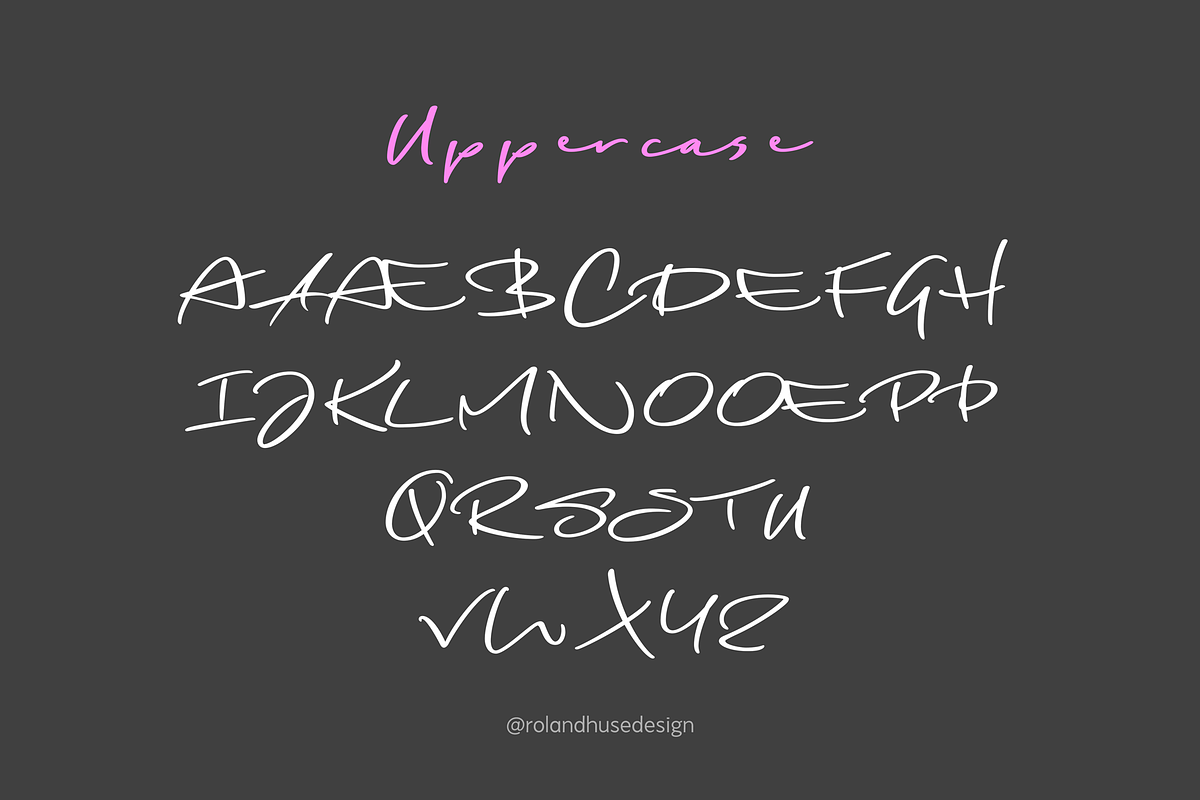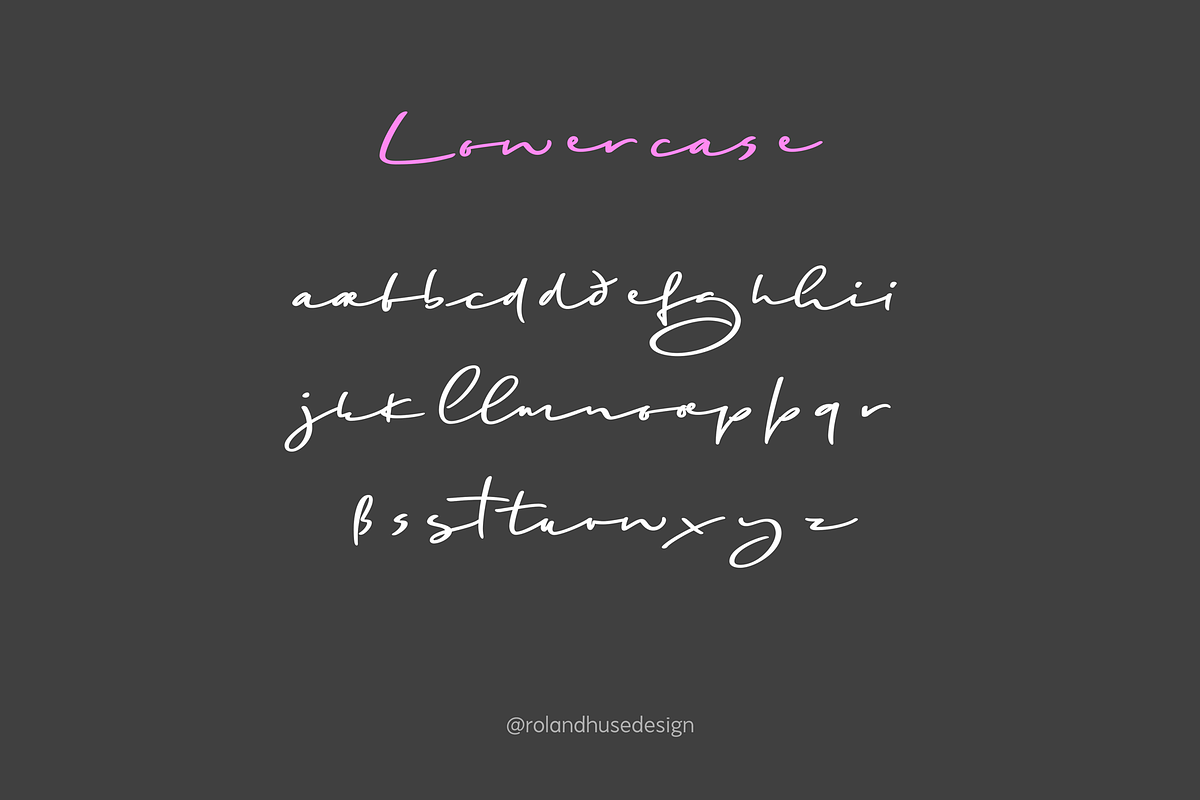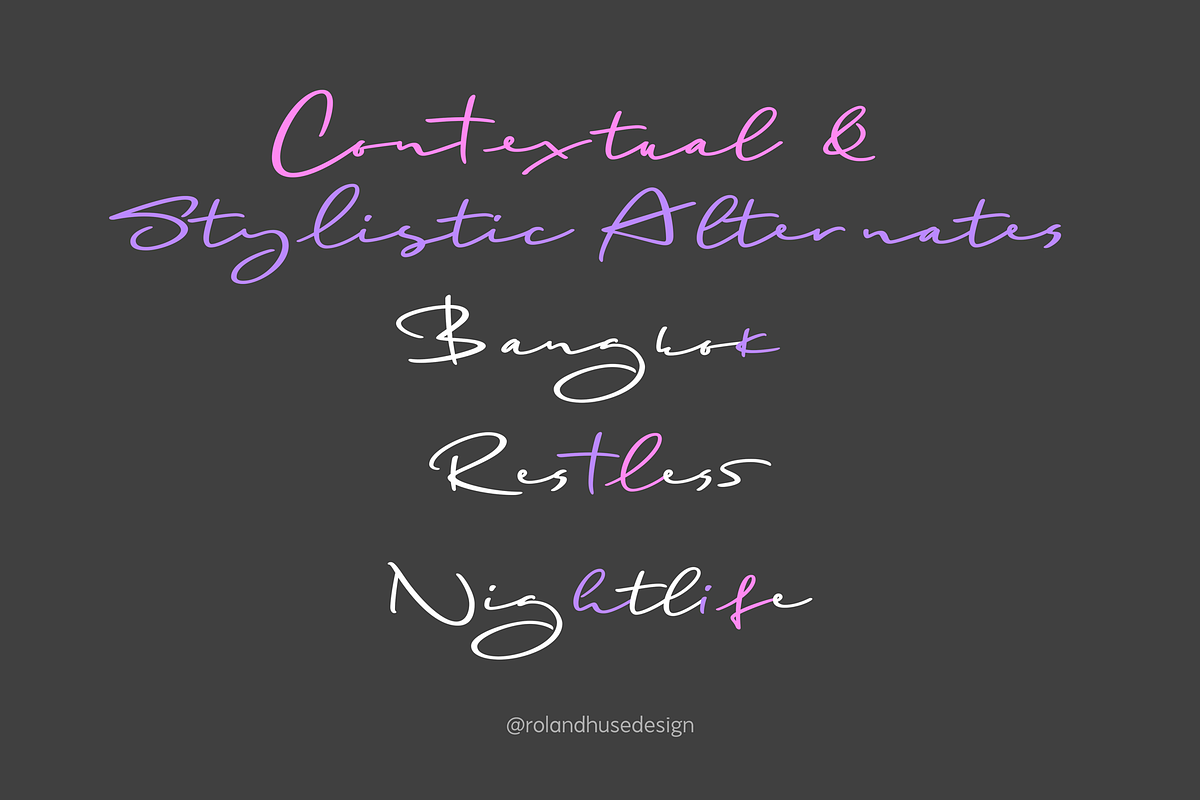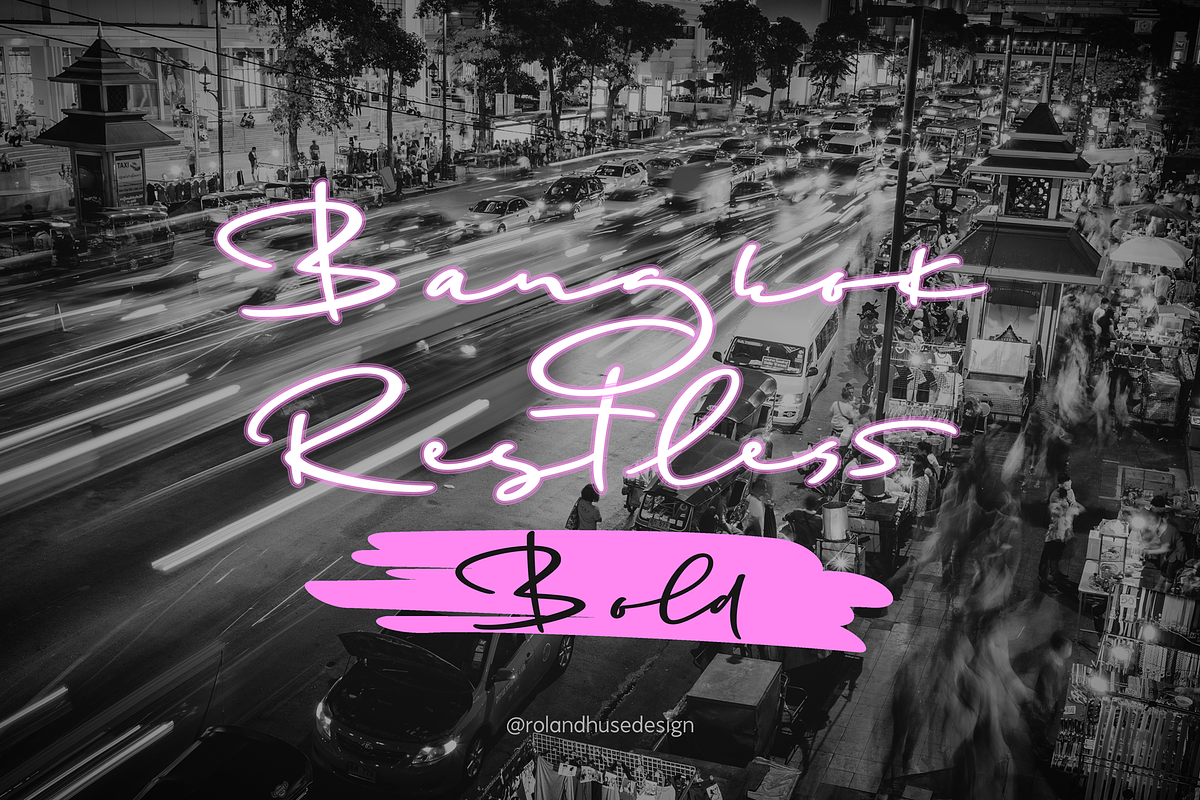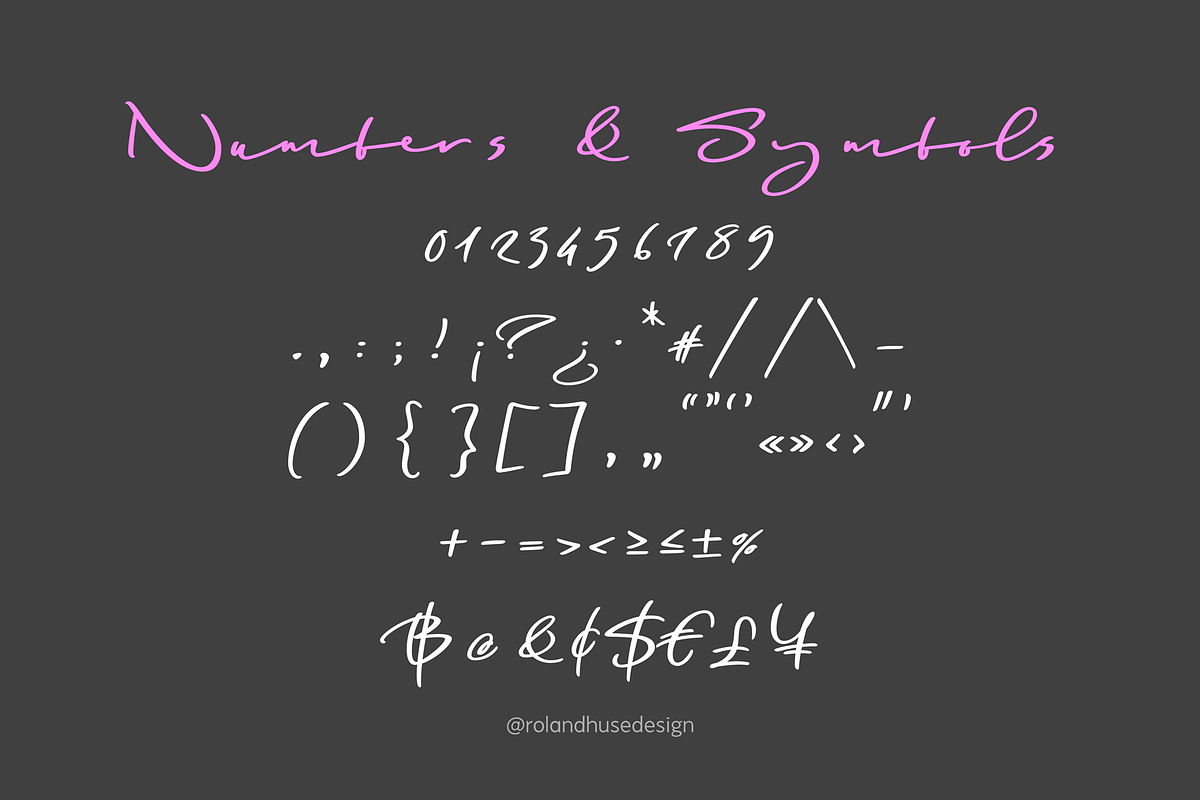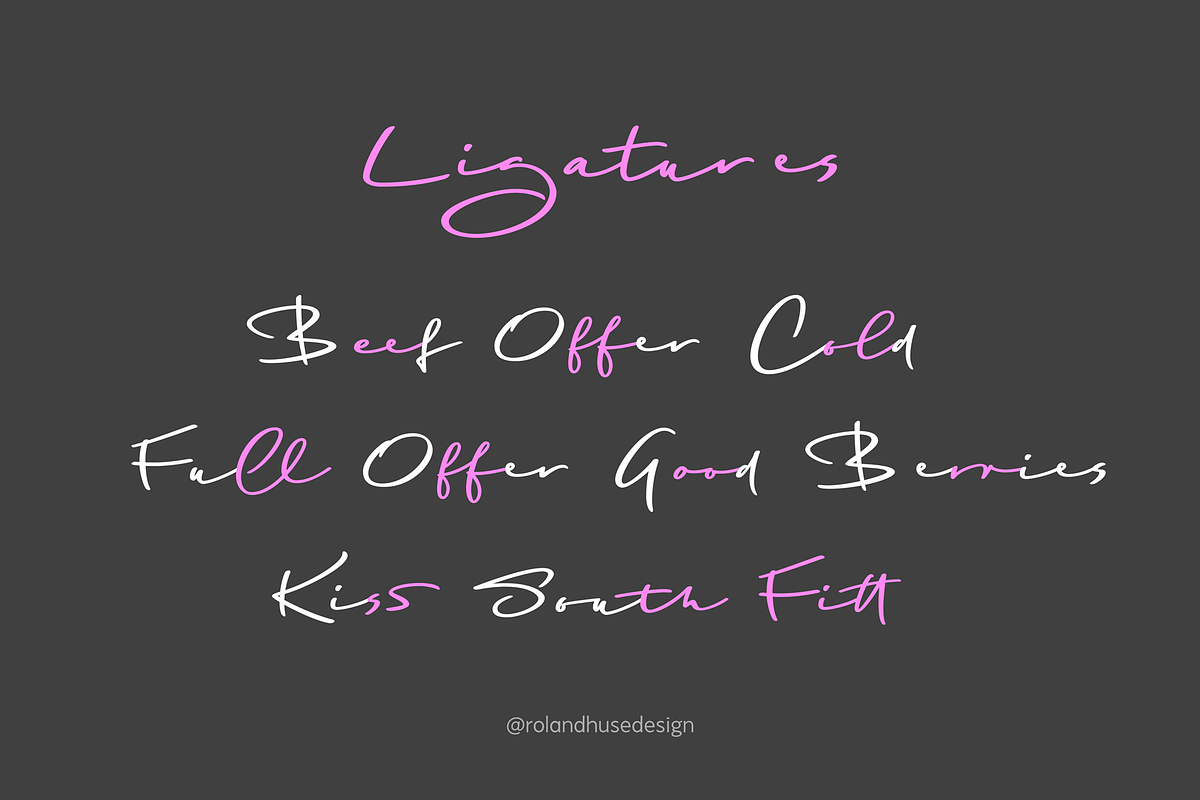
Bangkok Restless Bold
Bangkok Restless is a playful and stylish handwritten font. This is the Bold version of the original, Regular weight font and is a great option for those looking for a more striking look. You can find it in my store under the name "Bangkok Restless". It's a contemporary and fresh font that's perfect for any design you're working on. Incorporate it into your creative projects to make them stand out!
- Western, Eastern and South Eastern Latin Characters and Accents
- Stylistic alternates: uppercase A and S, Lowercase b, d, h, k, i, l, s, and t.
- Contextual alternates for better connection: Lowercase e, f, i, j, l.
- Ligatures: ee, ff, ll, ol, rr, ss, th, tt.